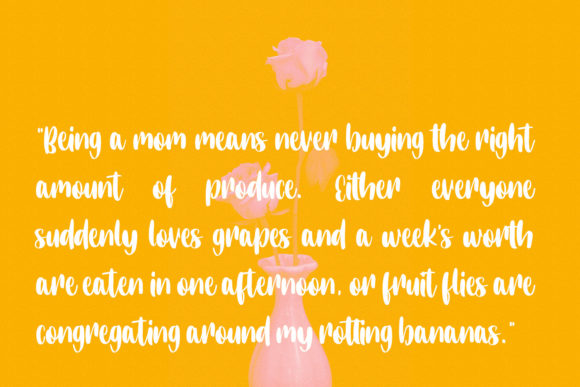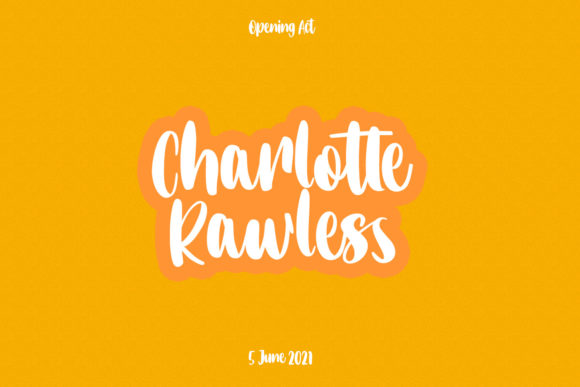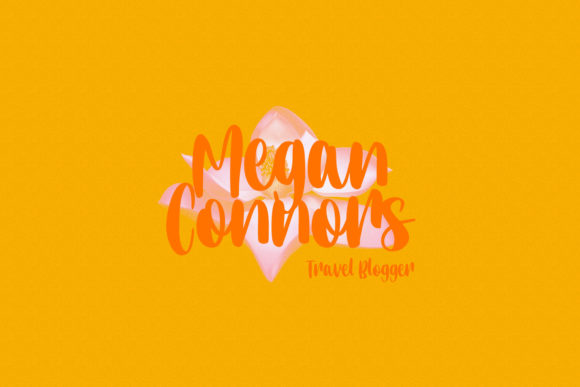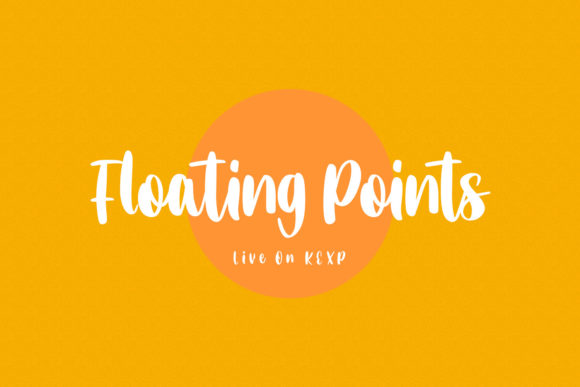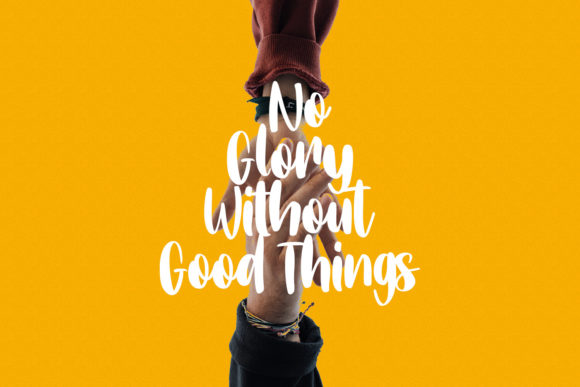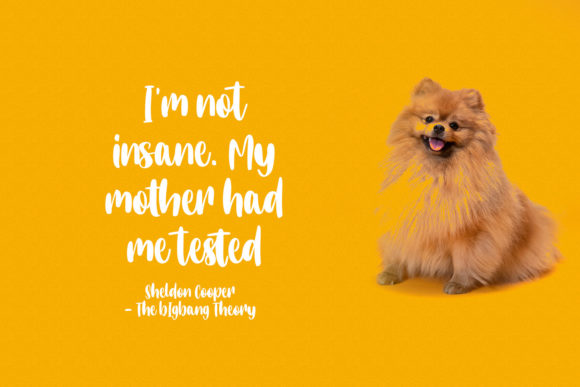
Introduction to Lottebytes Font
Lottebytes is a joyful, casual and friendly handwritten font.
Whether you use it for cartoon related designs, children games or just any creation that requires a lovely touch, this font will be an amazing choice .
Key Features of Lottebytes Font
Why Choose Lottebytes Font?
Lottebytes Font offers exceptional quality and versatility, making it a valuable addition to your design toolkit. Whether you’re creating for personal projects or commercial use, Lottebytes Font delivers professional results.